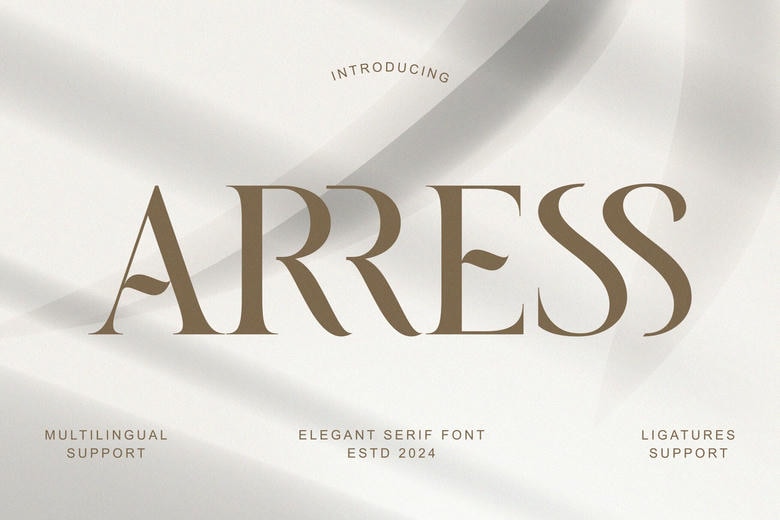
Arress Font
Arress is an elegant and current serif typeface. Offering a contemporary look, Arress introduces a premium style that is tidy and perfect for your projects including websites, modern logos, brand identities, social media quotes, wedding stationery and a range of other requirements!
Arress Serif Font